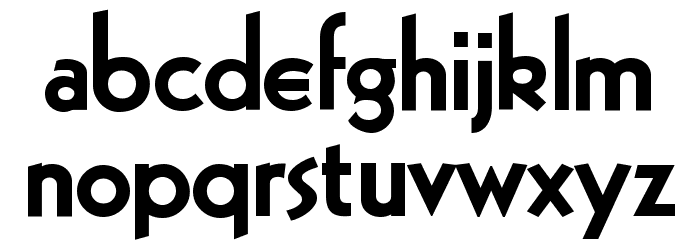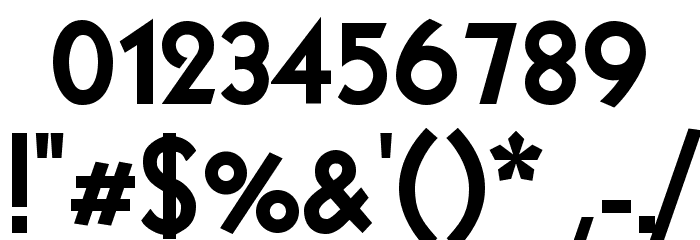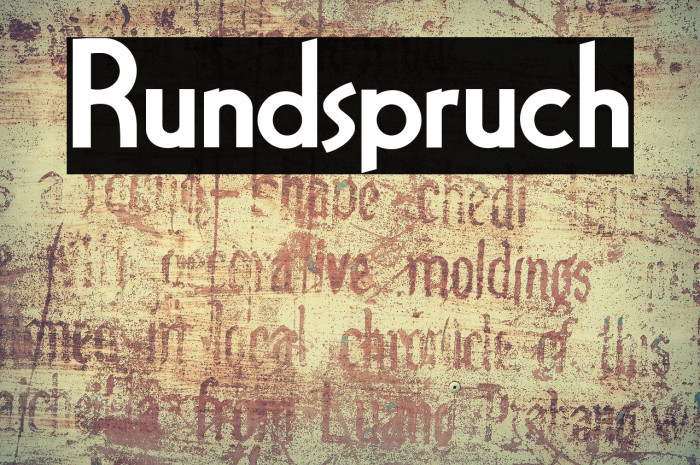
Rundspruch Font
This font features a geometric and modern design with clean, straight lines and smooth curves. The uppercase letters are bold and assertive, while the lowercase letters maintain a consistent style with slightly rounded edges. The numerals are clear and easy to read, complementing the overall aesthetic. Special characters are designed with the same attention to detail, ensuring uniformity across all glyphs. The font's balance between sharp angles and soft curves gives it a versatile and contemporary look, suitable for various design applications.
A geometric, modern font with clean lines and smooth curves.